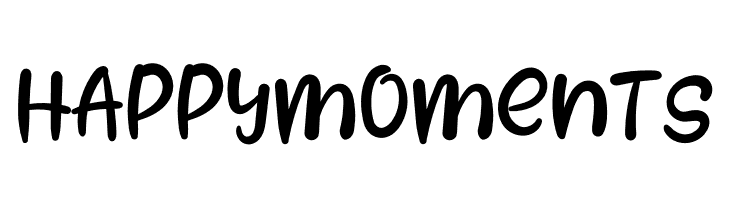
A playful, handwritten font with dynamic strokes and a modern twist.
A playful, handwritten font with fluid, irregular strokes.
A bold, playful handwritten font with rounded edges and a casual vibe.
A playful handwritten font with whimsical curls and loops.
A playful, handwritten font with bold, rounded strokes and a lively, informal style.